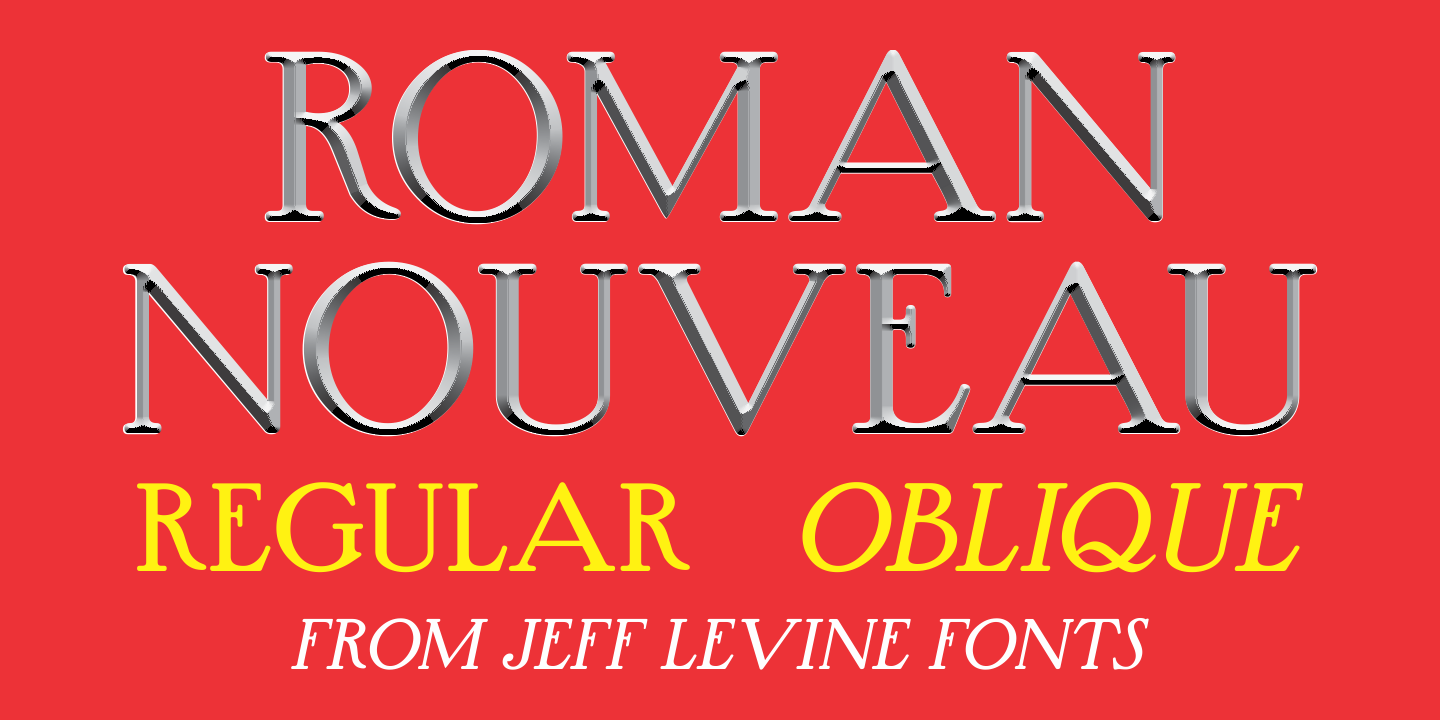
This sophisticated typeface is perfect for luxury hotels, fine dining restaurants, vintage wine labels, art nouveau exhibitions, boutique fashion brands, upscale jewelry stores, premium cosmetics packaging, elegant wedding invitations, historic preservation projects, antique dealers, museum exhibitions, cultural heritage sites, and refined hospitality branding. The font's classical revival design makes it ideal for projects that celebrate timeless elegance and artistic heritage.
Roman Nouveau JNL Font is exciting because it masterfully combines ancient Roman grandeur with Art Nouveau sophistication through its distinctive letterforms and ornamental character structure. The font's elegant curves and classical proportions create an atmosphere of refined luxury and cultural depth, making it perfect for brands that want to convey heritage, sophistication, and artistic excellence. Its timeless appeal bridges historical authenticity with contemporary design sensibilities.
The Roman Nouveau JNL Font family includes carefully crafted variations: Light Heritage, Regular Classic, Medium Elegance, Bold Imperial, and Black Majesty weights, each available in standard and italic styles. Special decorative editions feature ornamental capitals, flourished alternates, and period-appropriate ligatures that enhance the font's historical authenticity, providing designers with comprehensive tools for creating distinguished vintage-inspired compositions.